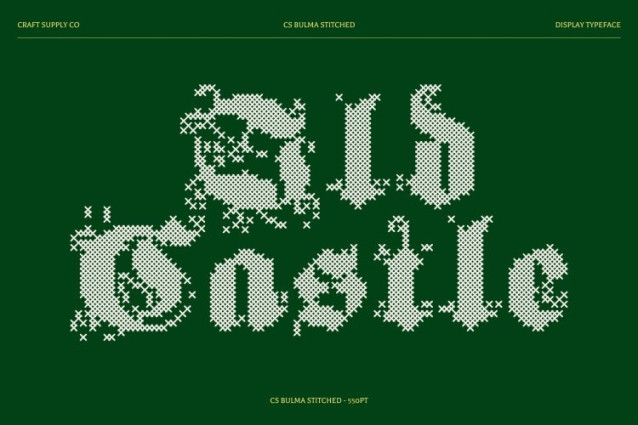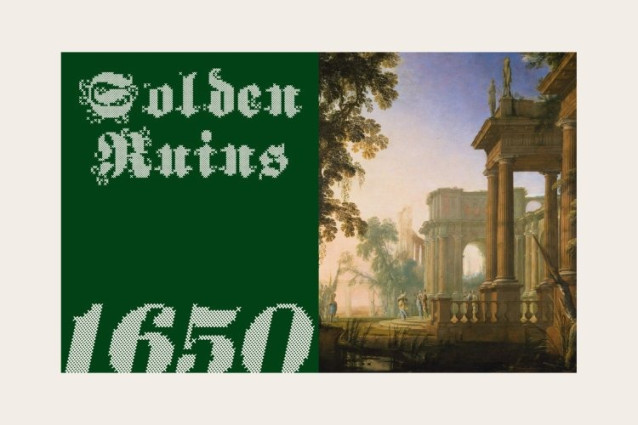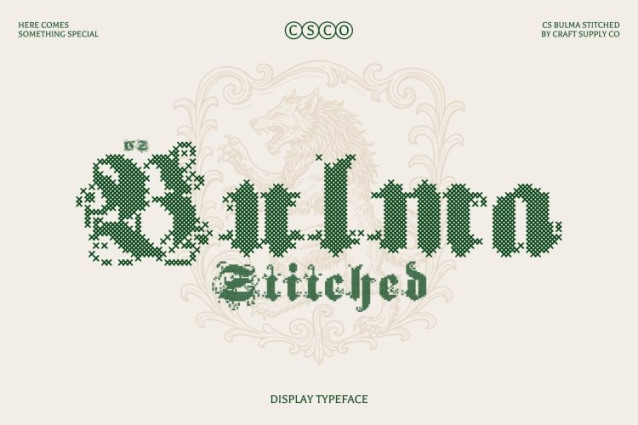
CS Bulma Stitched Font
CS Bulma Stitched Font is a bold blackletter display font that captures the dramatic spirit of traditional Gothic lettering while introducing a handcrafted stitched texture. Its sharp, angular forms and ornate details echo the visual language of medieval manuscripts, bringing a strong sense of history, authority, and sophistication. The stitched effect, inspired by thread sewn or embroidered on fabric, adds a unique tactile dimension that enriches the classic blackletter structure.
Medieval-Inspired Forms with Embossed Stitch Effect
The defining character of lies in its angular letterforms and decorative Gothic strokes. Overlayed with subtle cross-shaped stitch patterns, each character gains an embossed fabric-like texture that enhances depth and visual interest. This combination of historic structure and crafted detailing creates a distinctive aesthetic that feels both traditional and artistically textured.
Bold Presence with Historic Drama
Rooted in medieval calligraphic traditions, the font delivers a powerful visual impact through its strong vertical strokes and intricate shapes. The stitched texture softens the intensity slightly by introducing a sense of craftsmanship and warmth, resulting in a unique balance between bold gothic drama and handcrafted charm.
Perfect for Impactful and Heritage-Inspired Design
This is ideal for bold headlines, logos, posters, album covers, and branding that require a striking and historical visual identity. Whether used in gothic-themed projects, vintage-inspired branding, or modern creative layouts, this font stands out with its dramatic presence, medieval elegance.